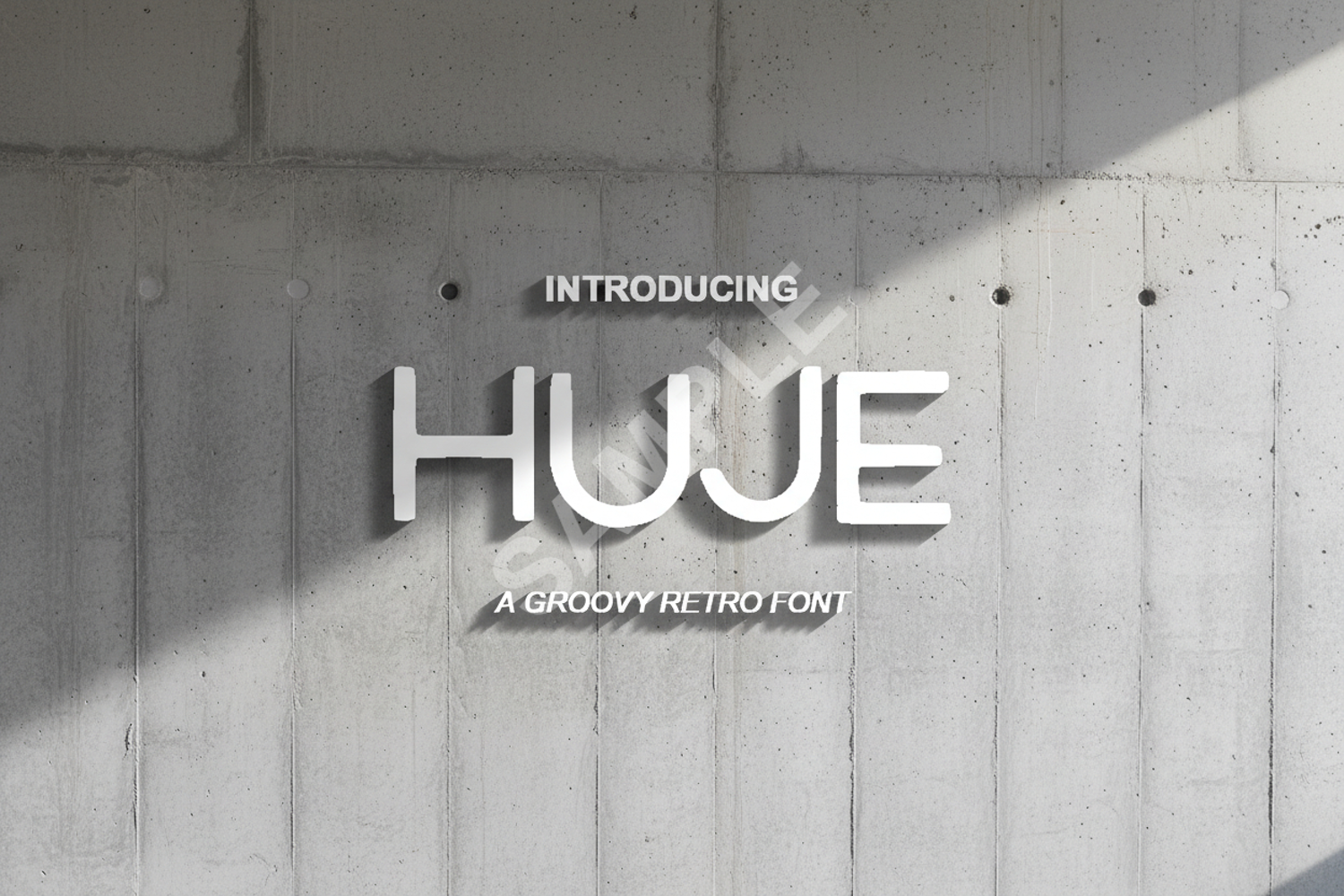
Huje - Modern Minimalist Sans Serif Typeface
Huje
Huje is a premium sans-serif typeface that embodies modern minimalism and sophisticated design. Crafted with precision, this font offers clean lines and balanced proportions, making it an essential tool for designers seeking a professional and contemporary look. Whether you are working on a high-end corporate identity or a sleek digital interface, Huje provides the versatility needed to elevate your creative projects to the next level.
Huje is perfectly suited for a wide range of creative applications including:
- Branding and Visual Identity: Create memorable logos and corporate stationery.
- Editorial Design: Ideal for magazine layouts, headlines, and clean body text.
- Digital Media: Optimized for website headers, mobile apps, and social media graphics.
- Marketing Materials: Enhance posters, brochures, and advertisement banners.
- Product Packaging: Add a touch of elegance to labels and modern box designs.